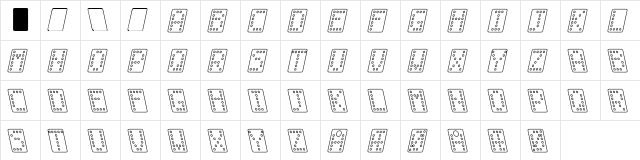
Domino normal kursiv omrids Regular
Design Context for Domino normal kursiv omrids Typeface
Domino normal kursiv omrids is a composed and adaptable typeface that performs quietly and consistently across a wide range of design contexts. The dynamic lean of this cut emphasises speed and emphasis in any layout.
Pro Tip: Try Domino normal kursiv omrids for annotation and caption copy alongside an upright companion — the contrast in angle creates a dynamic but ordered typographic system.